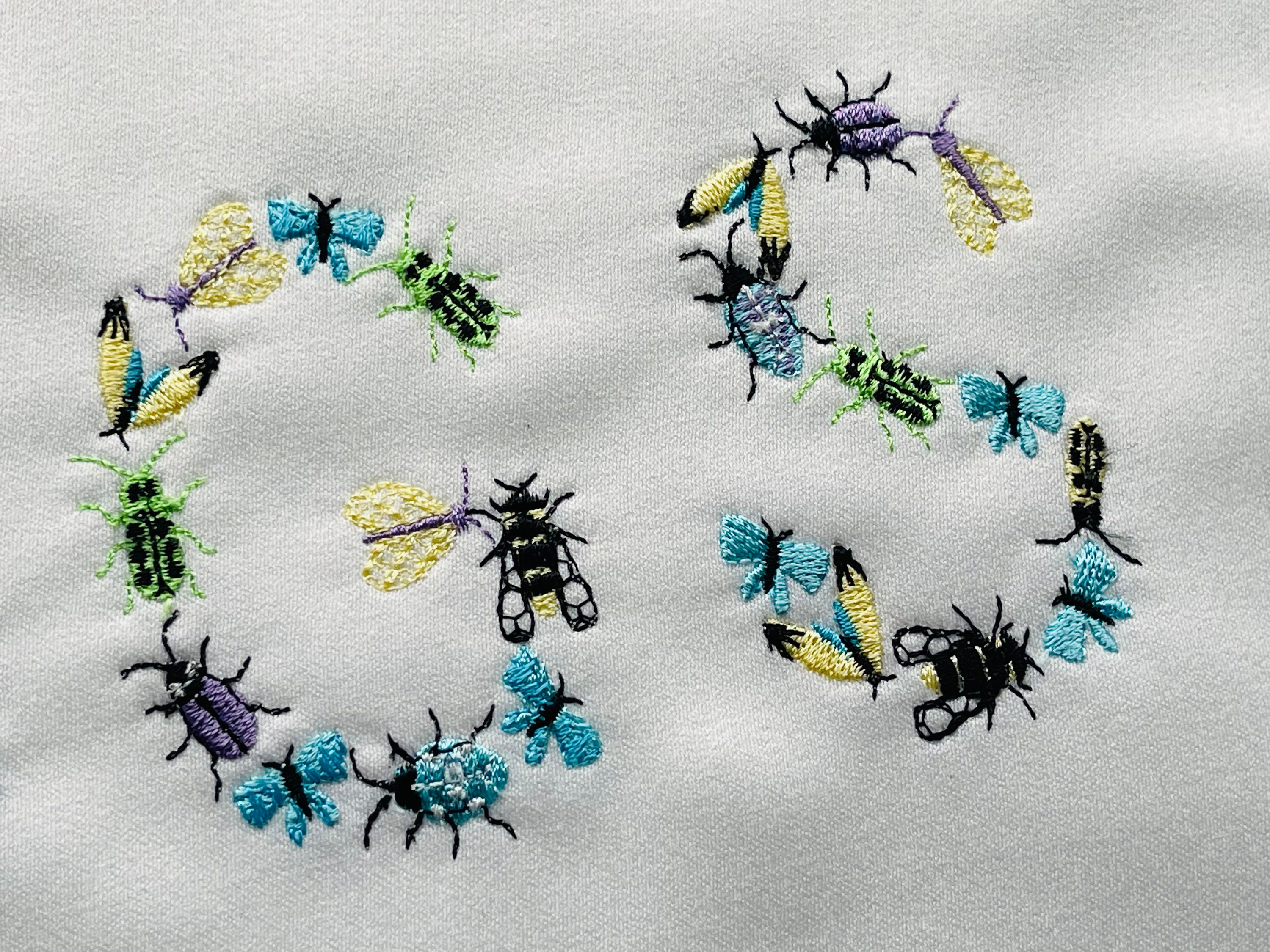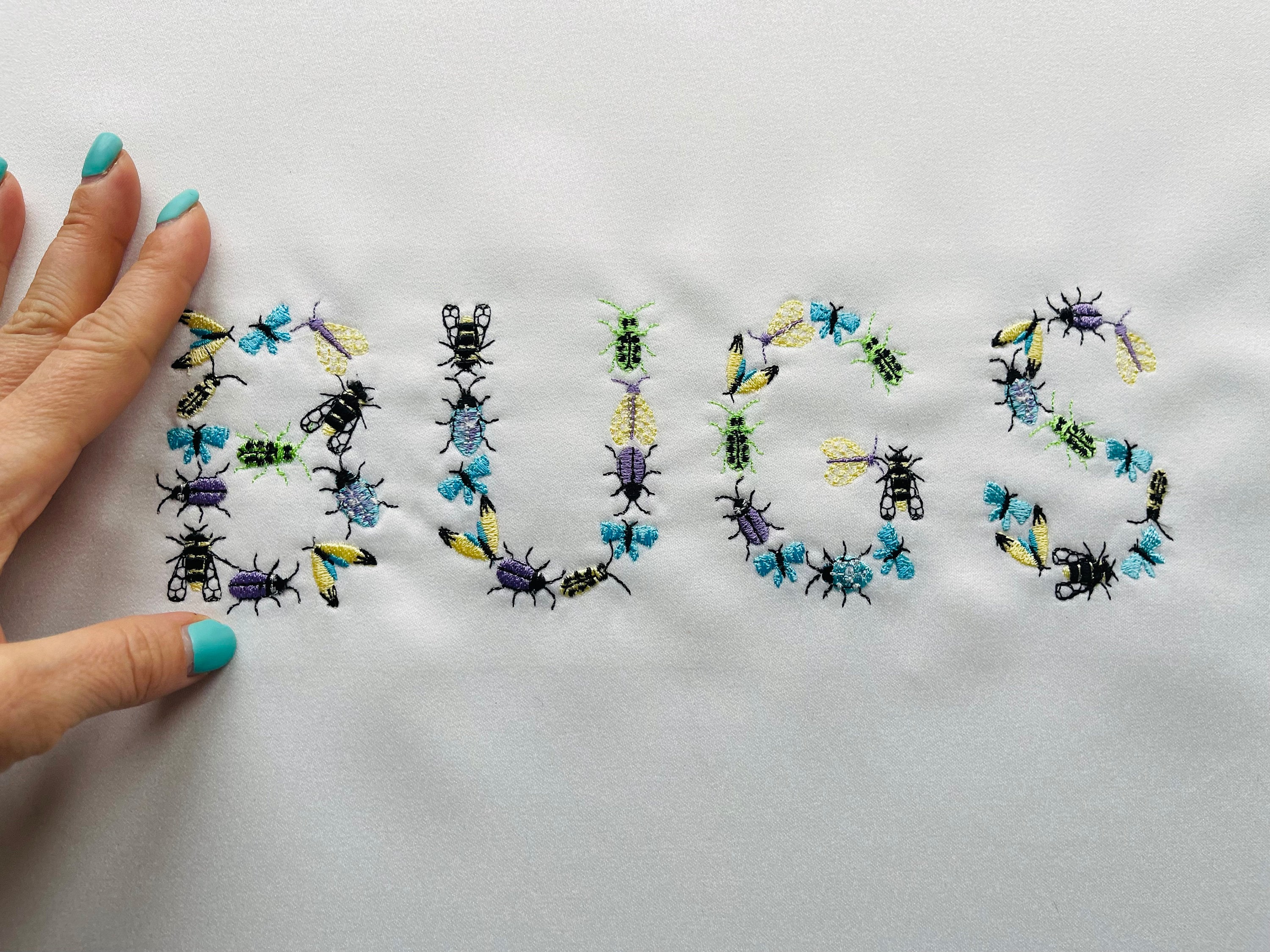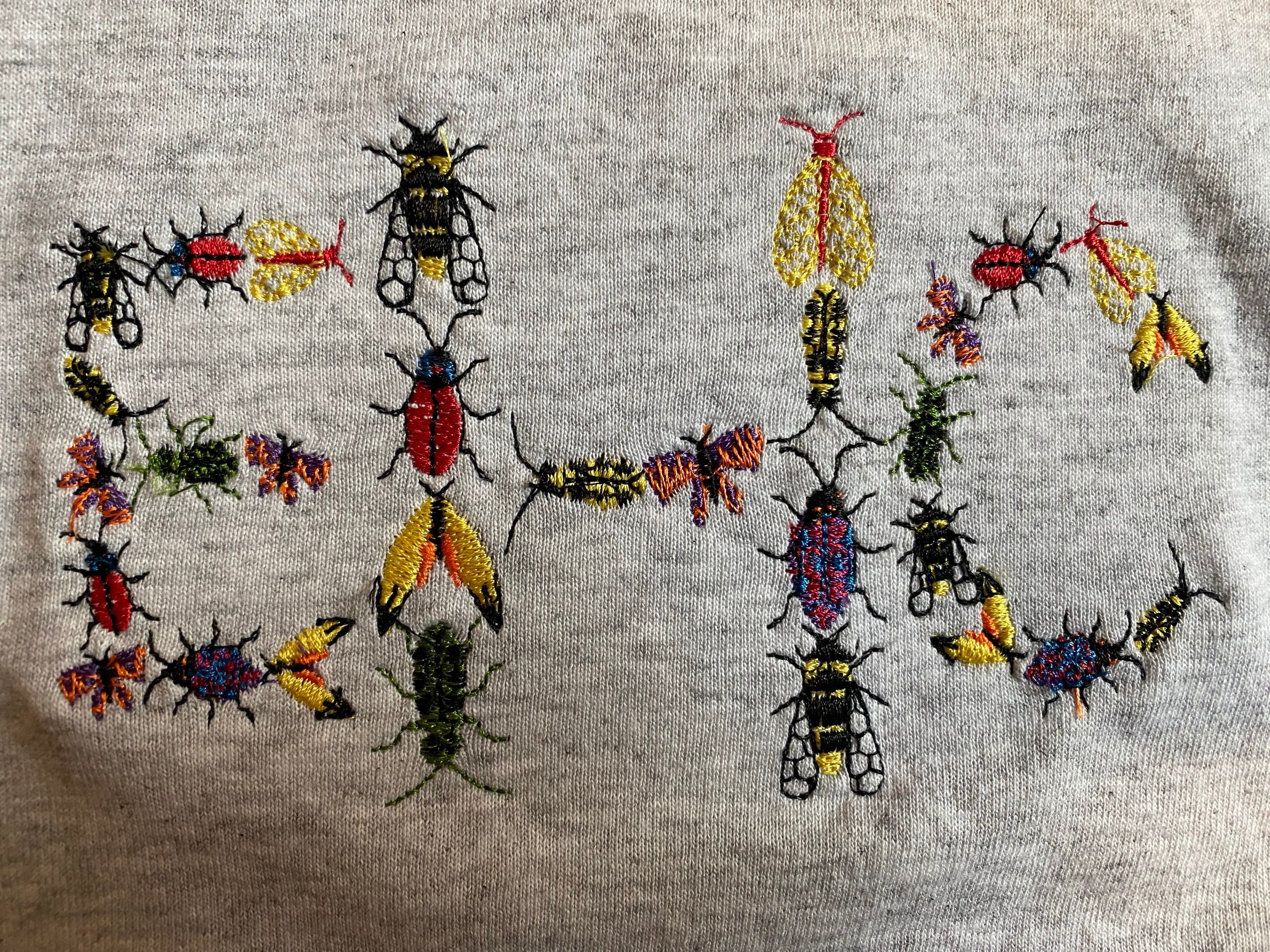
Spring BUGS Font buggy alphabet uppercase letters monogram machine embroidery designs BX font for kids font from 2.5" bug moth bee butterfly
Letters A to Z